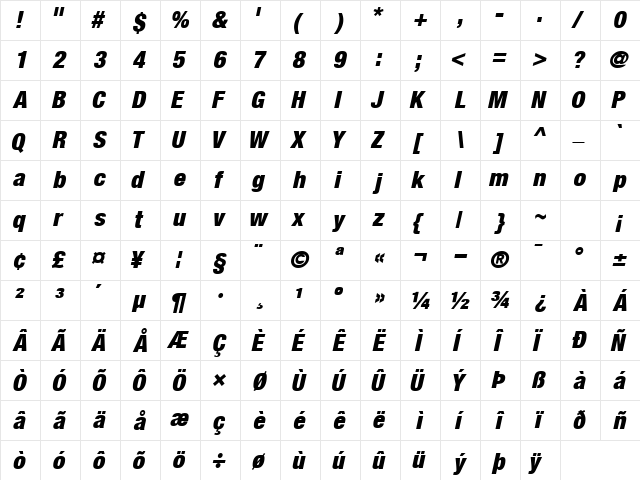
ContextRepriseBlackCondSSK BoldItalic Font Preview
Design Context for ContextRepriseBlackCondSSK Typeface
ContextRepriseBlackCondSSK takes a measured approach to typography — its balanced proportions and neutral character make it a reliable workhorse for both digital and print work. The dynamic lean of this cut emphasises speed and emphasis in any layout. The heavy weight commands attention and anchors typographic hierarchies. Its narrow stance lets it pack a punch even in space-constrained designs.
Pro Tip: Use ContextRepriseBlackCondSSK for emphasis, pull quotes, and subheadings where its slanted energy can add rhythm to the layout.